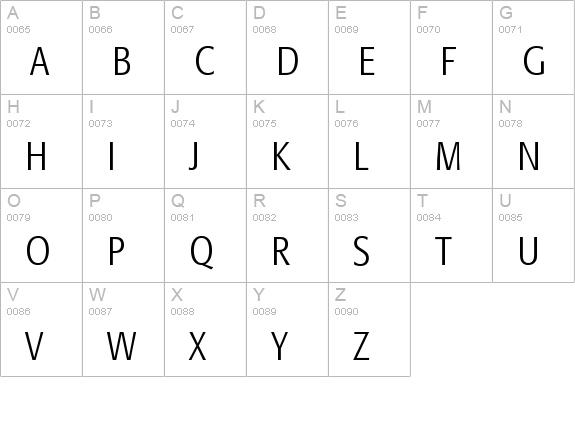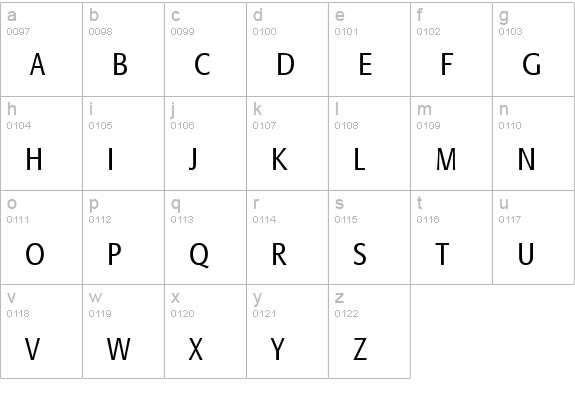
Formata ConExpert BQ Light is a refined, elegant variant in the Formata typeface family \xE2\x80\x94 well suited to elegant body text, refined sub-headings, and luxury branding.
Introducing Formata ConExpert BQ Light font, a sleek and elegant typeface that exudes sophistication and modernity. With its clean lines and expertly crafted design, this font is perfect for adding a touch of refinement to any project. The Formata ConExpert BQ Light font is versatile and can be used for a variety of purposes, from branding to editorial design. The best part? This stunning font is available for free download at FontsMarket.com. Simply visit the website to get your hands on this premium typeface and take your designs to the next level. Don't miss out on the opportunity to enhance your projects with the Formata ConExpert BQ Light font - download it now and elevate your typography game!